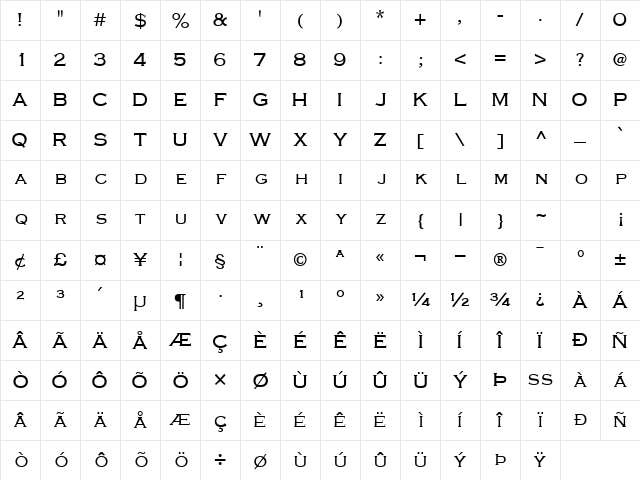
CopperplateLightSCapsSSK Regular
Design Context for CopperplateLightSCapsSSK
CopperplateLightSCapsSSK is a composed and adaptable typeface that performs quietly and consistently across a wide range of design contexts. Its slender proportions lend an understated elegance to any composition.